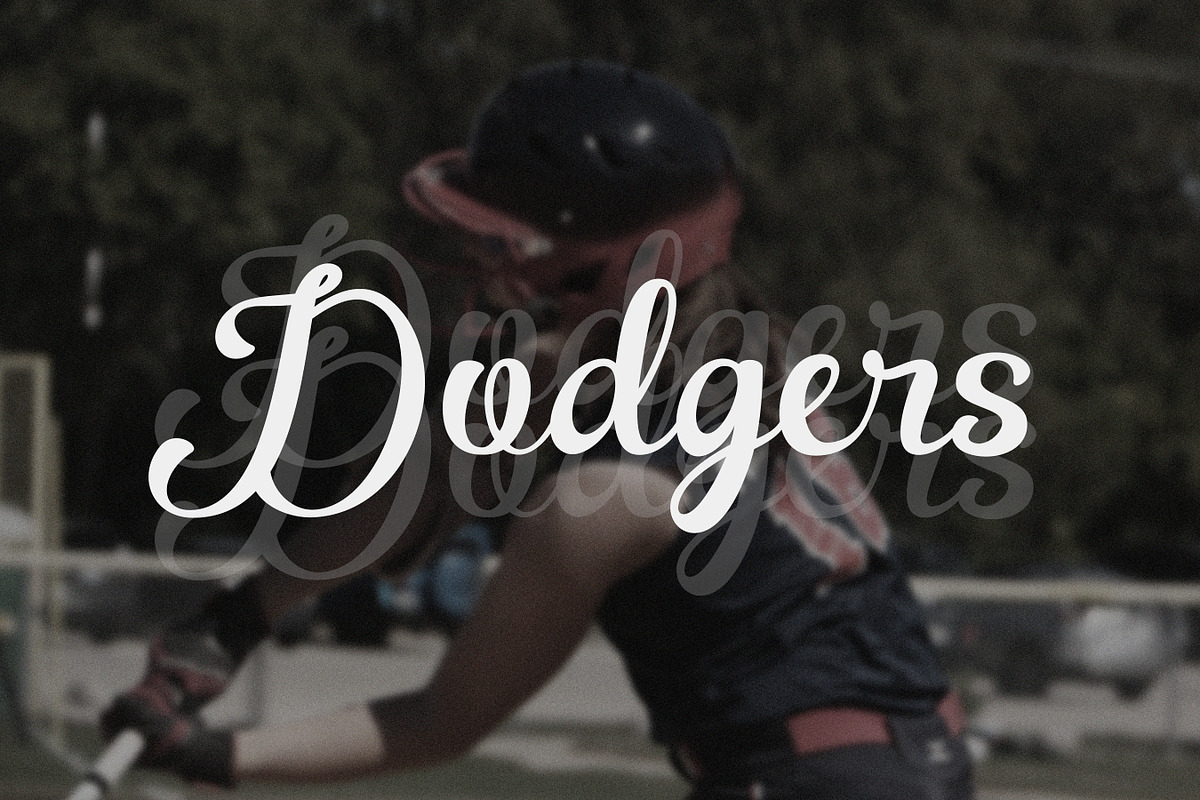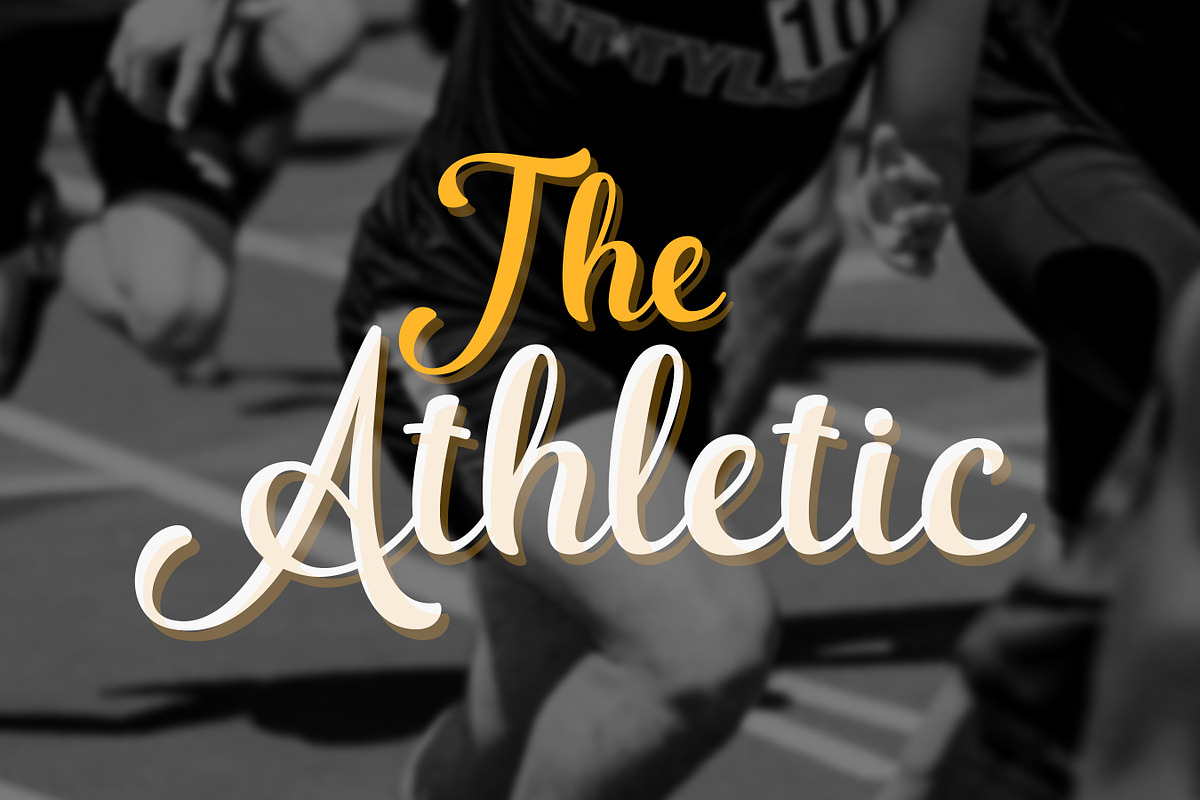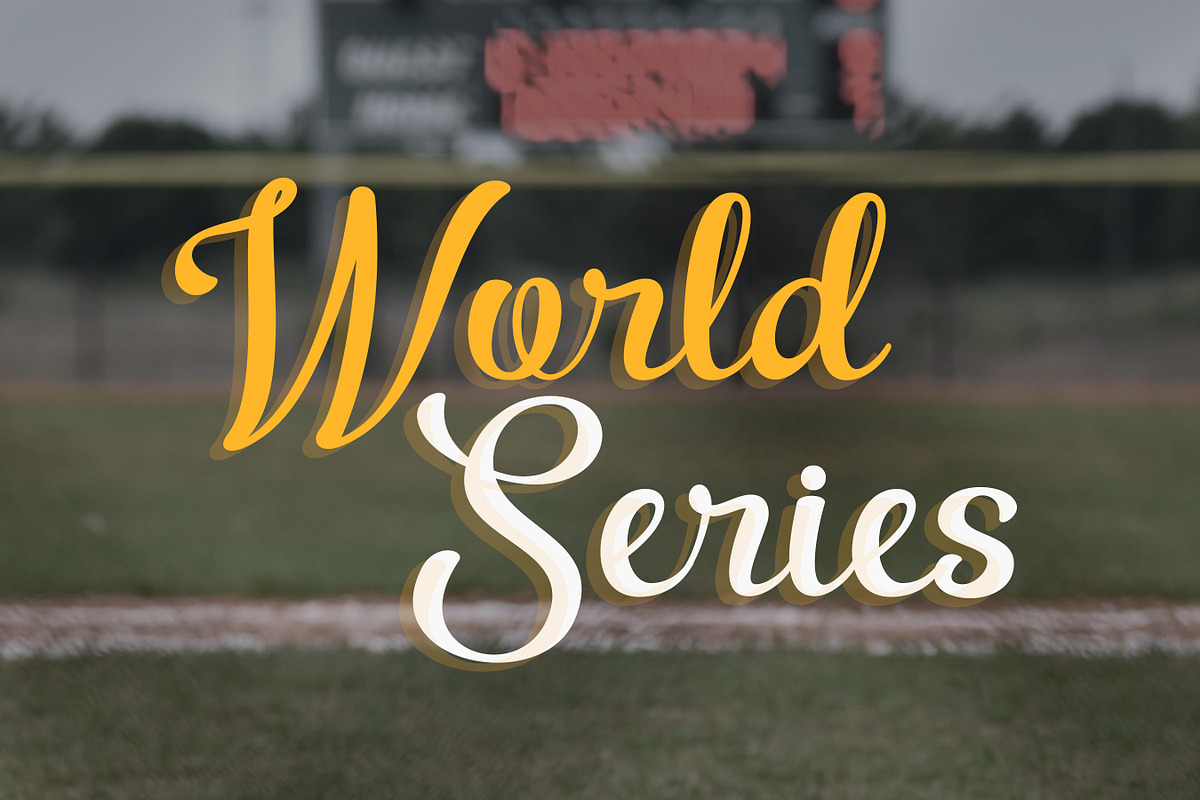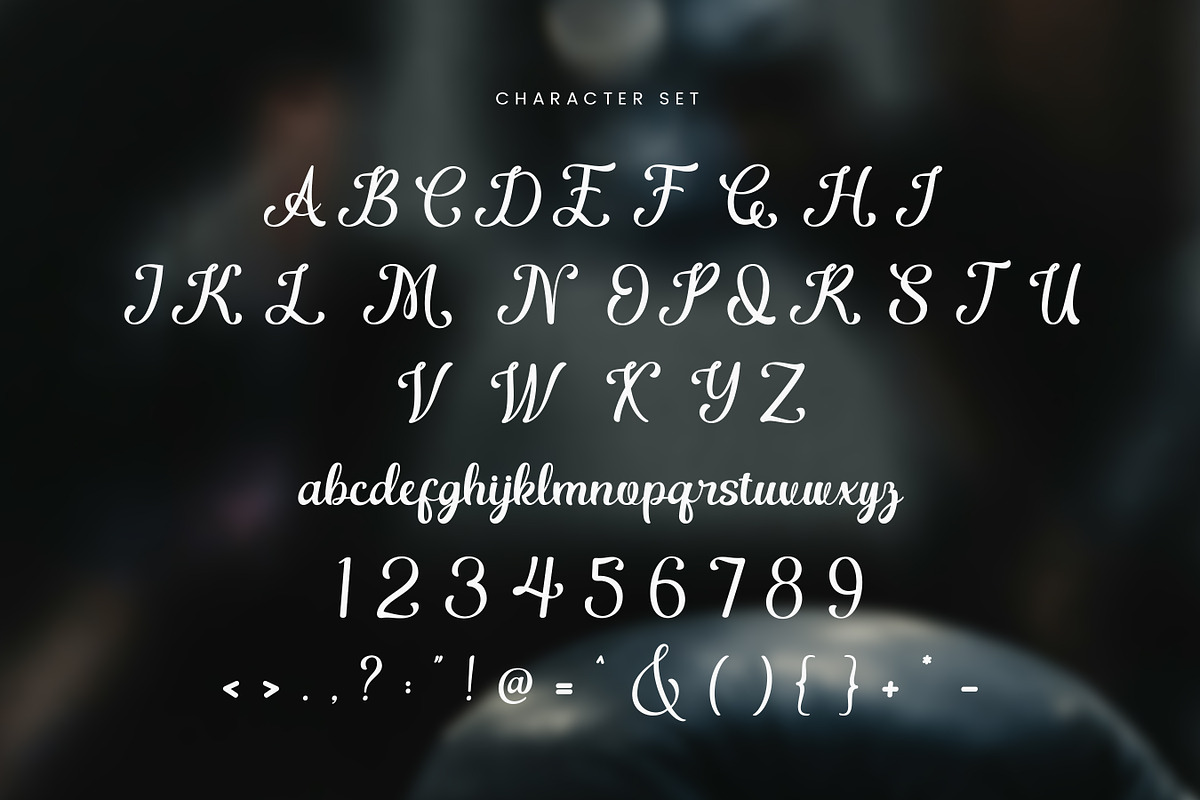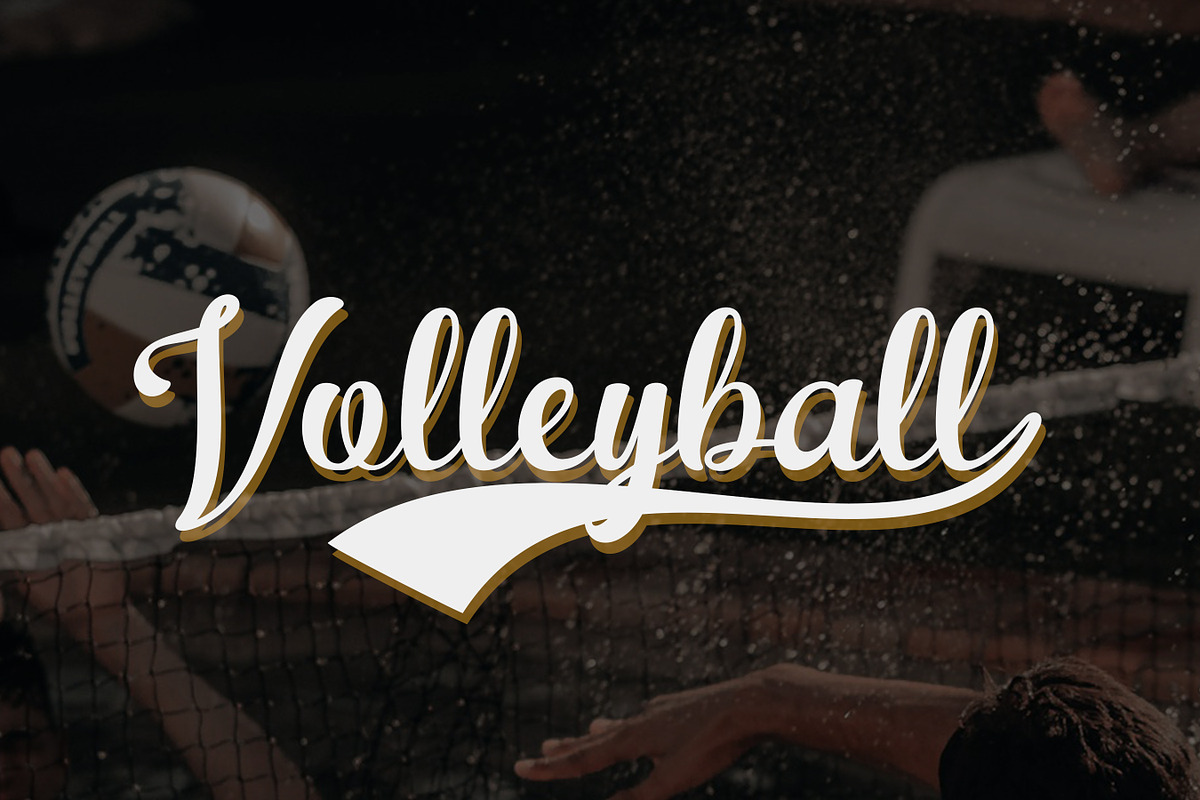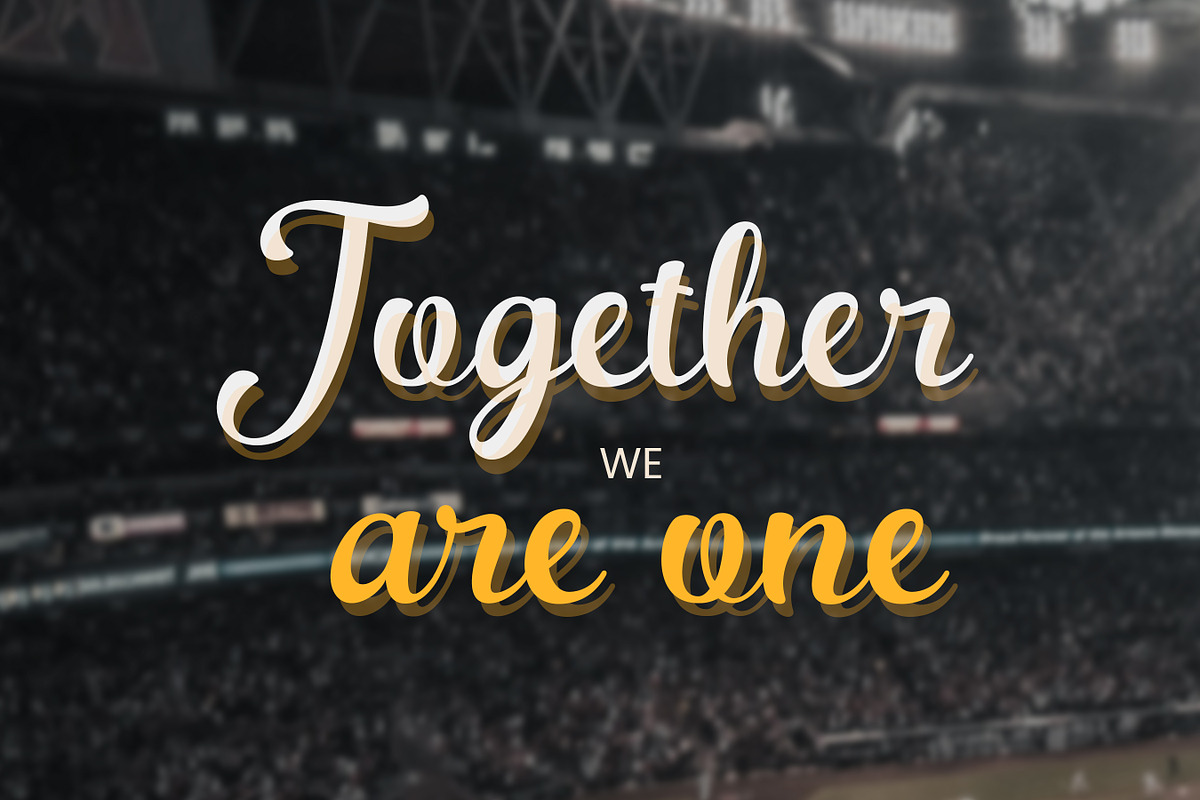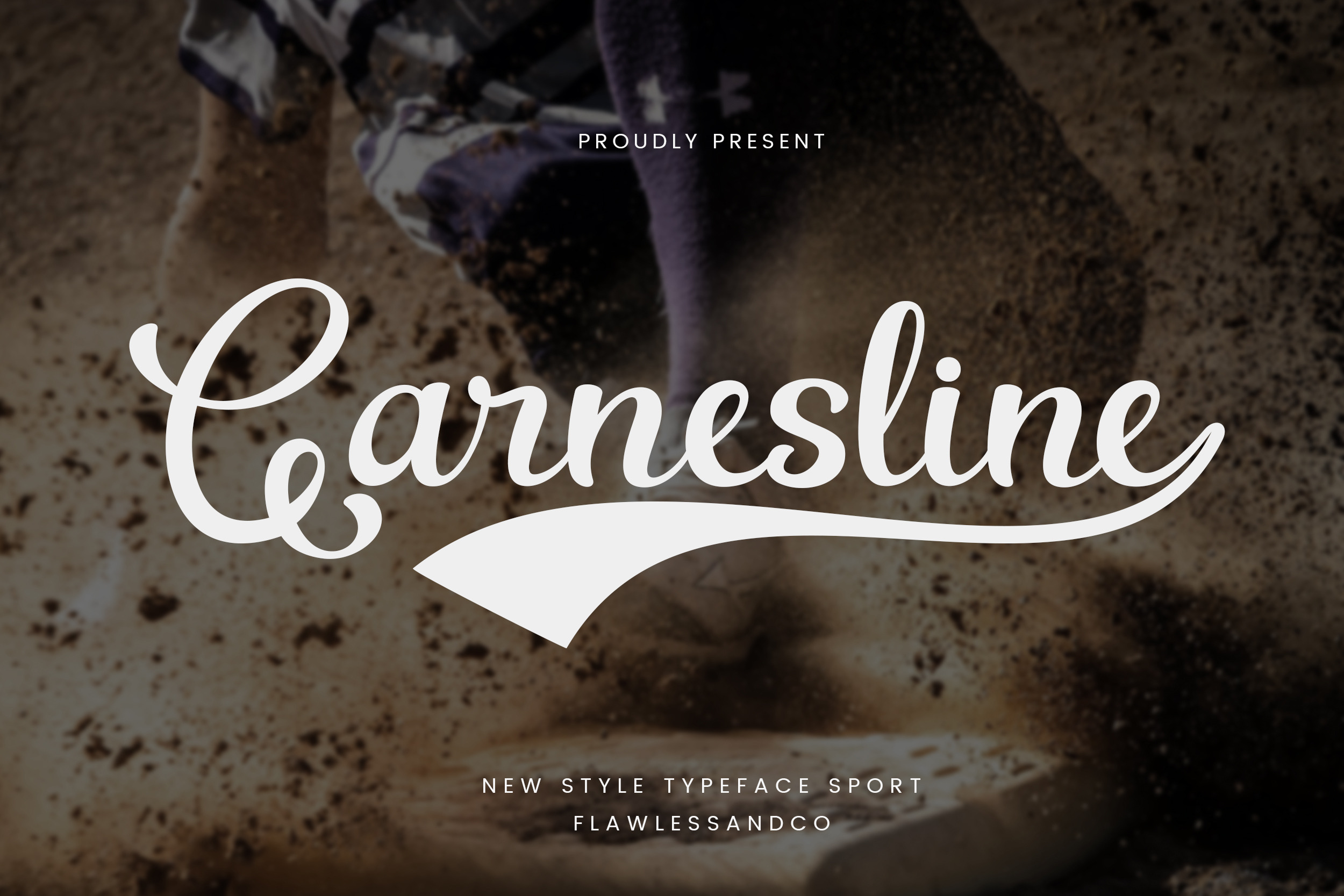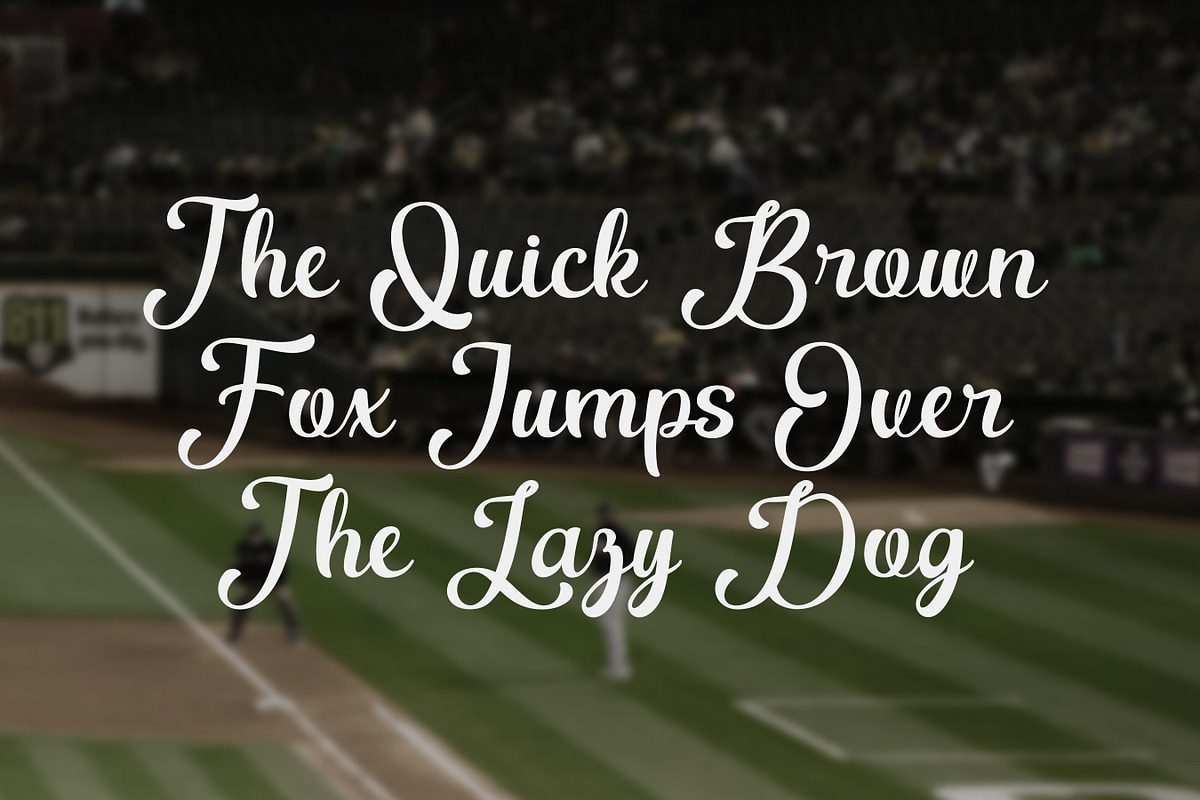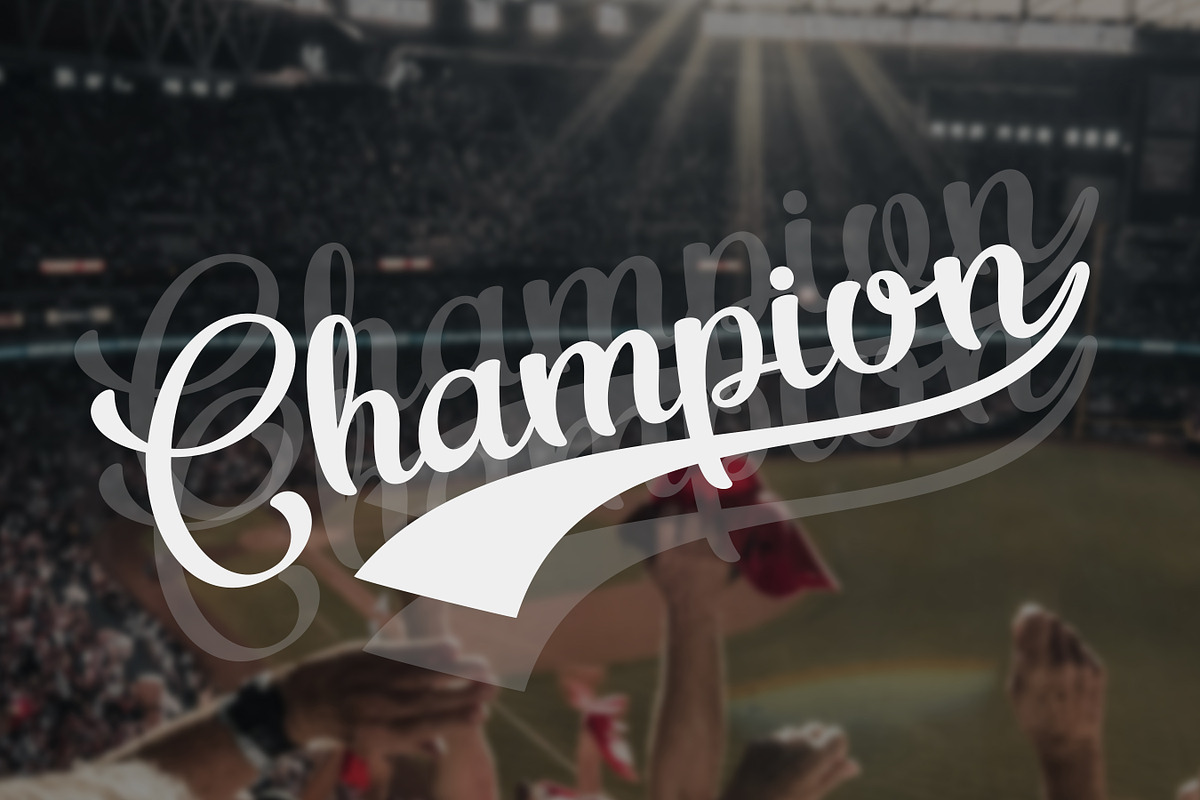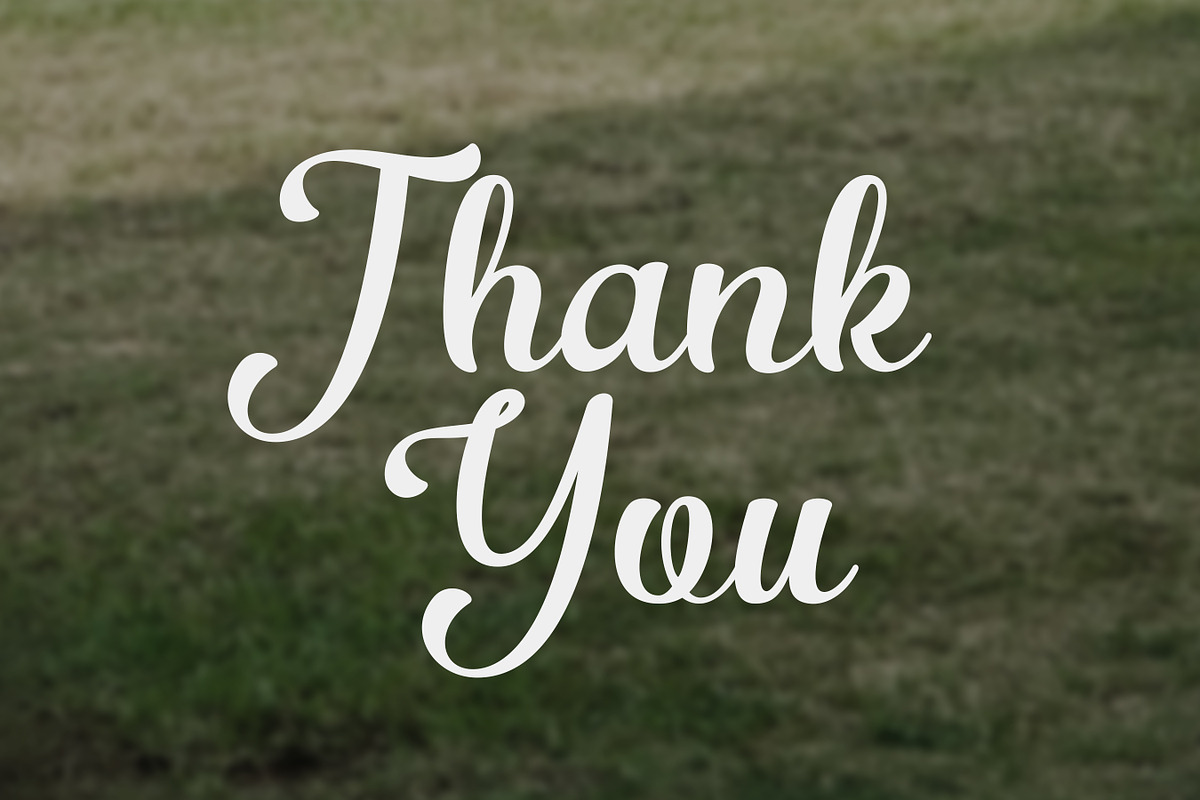
Garnesline - Sports Font
Introducing "Garnesline," a sports baseball font with a script retro-style that brings the timeless elegance and nostalgic charm of sports to your designs. Perfect for sports branding, team jerseys, promotional materials, and more, Garnesline captures the spirit of pastime with its stylish and fluid letterforms.
Multilingual Uppercase alphabet A-Z Lowercase alphabet a-z Numbers 0-9 Some punctuation